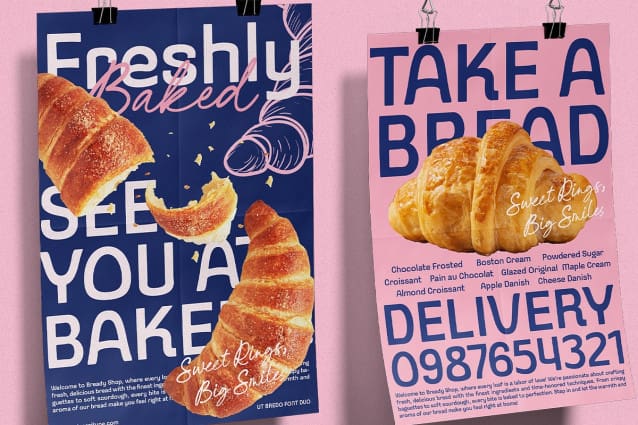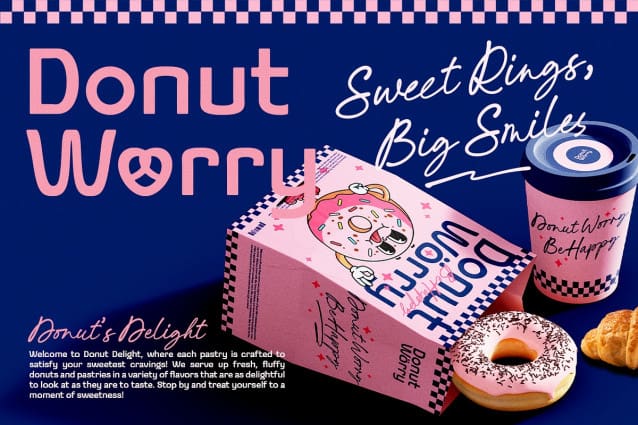
UT Breado Font Duo
UT Breado Font Duo reimagines traditional typography, blending the comforting essence of freshly baked bread with playful design. Inspired by the organic shapes of bread slices, this typeface embodies warmth, craftsmanship, and approachable elegance. Crafted for visionary creators, UT Breado Font Duo balances friendliness with refined design, making it the perfect ingredient for captivating branding and visual storytelling.
Wholesome Design for Artisanal Brands With its smooth, rounded character forms, UT Breado Font Duo offers a design that feels handcrafted and inviting. Every curve and contour echoes the satisfying softness of baked goods, making it an ideal choice for brands that value authenticity and charm. Whether for cozy cafes, food packaging, or community-driven campaigns, this typeface connects with audiences who appreciate warmth in both design and product.
Key Design Features: Organic Forms: Inspired by the soft, rounded anatomy of bread slices, each glyph flows with natural grace. Font Duo: UT Breado offers two complementary styles, ideal for versatile design projects from headlines to subtle body text. Ligatures and Stylistic Alternates: Thoughtfully crafted to add personality and creativity to your typography. Multilingual Support: Covers a diverse range of Latin characters, numbers, and punctuation to meet global design needs.
Designed to Delight Across Mediums From cozy print packaging to digital branding, UT Breado Font Duo adapts effortlessly, delivering visual consistency across platforms. Its light-hearted personality makes it perfect for inviting logos, menus, and product labels.